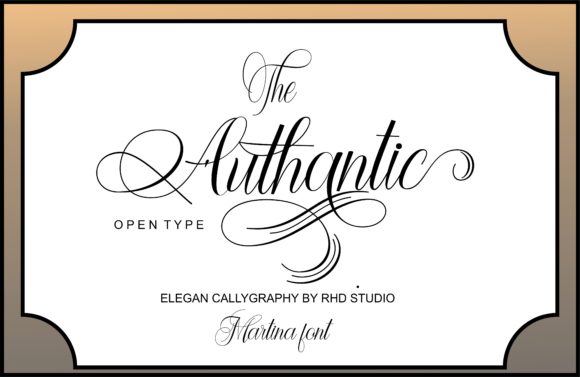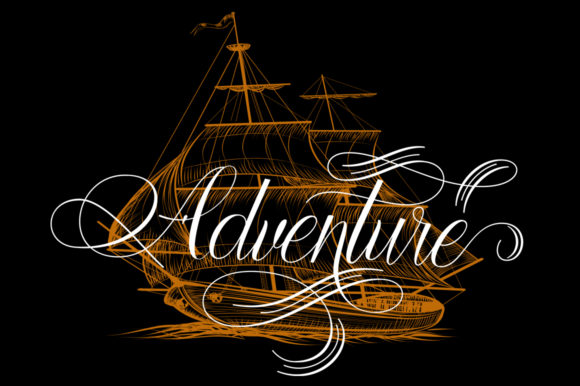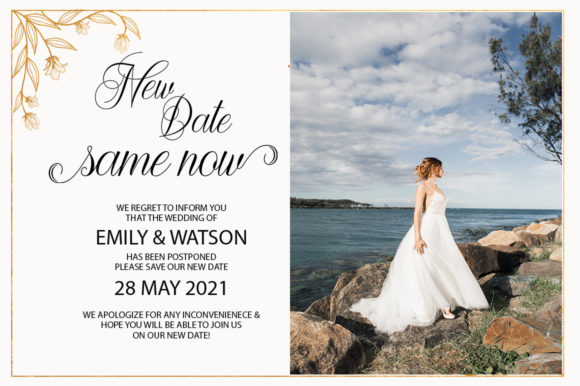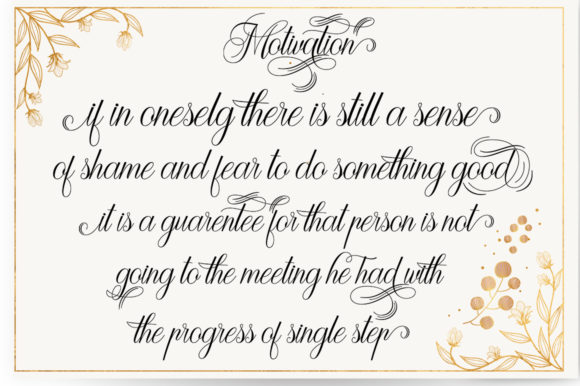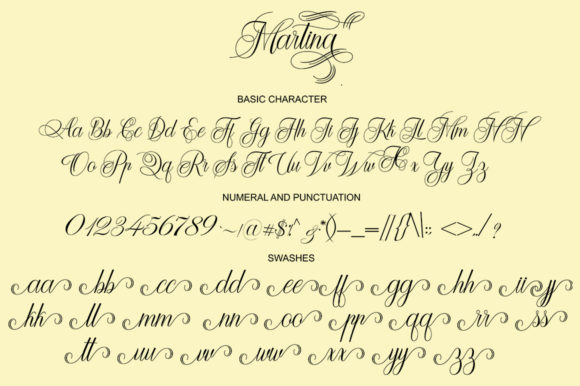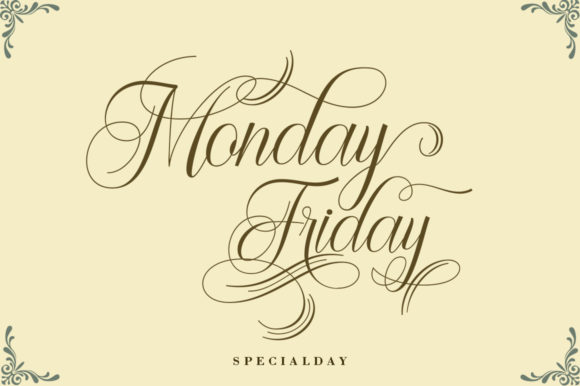
Martina Font
About Martina Font
Martina is an elegant and flowing handwritten font. It features a varying baseline, smooth lines, gorgeous glyphs and stunning alternates. It maintains its classy calligraphic influences while feeling contemporary and fresh. Fall in love with Martina and bring your projects to the highest levels!